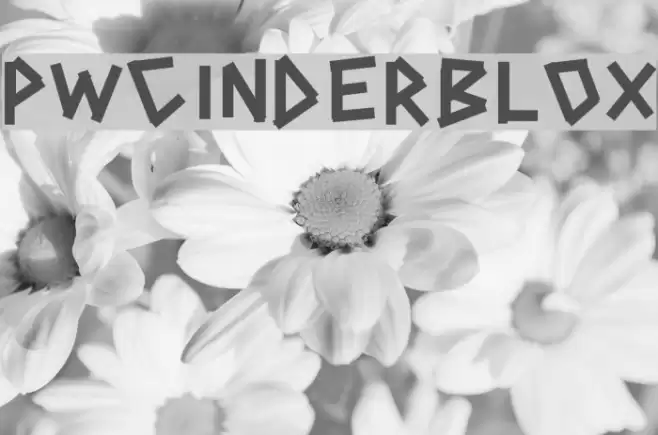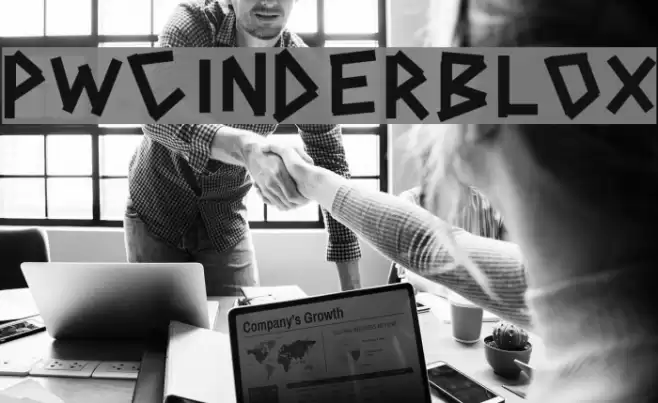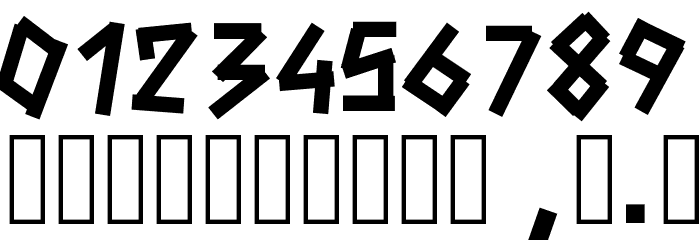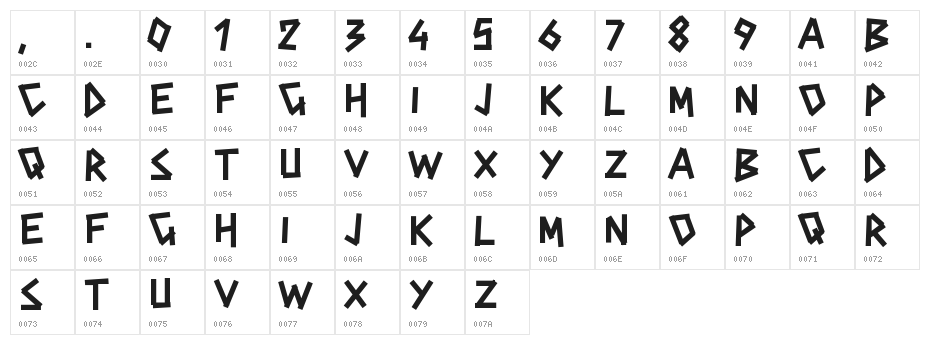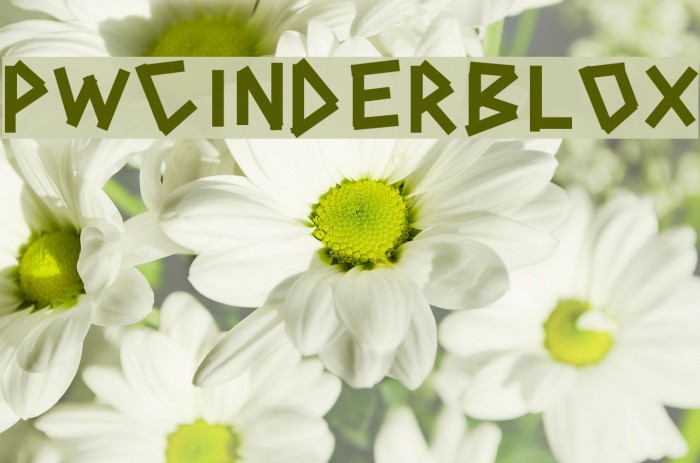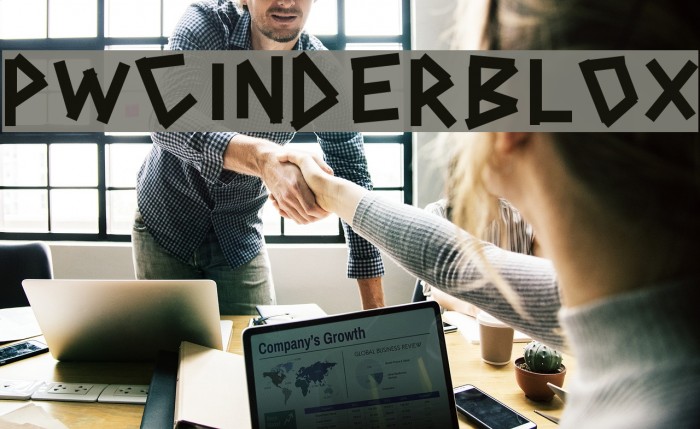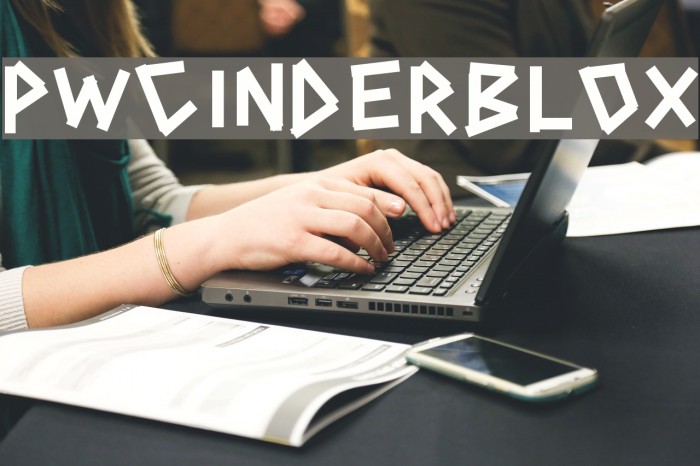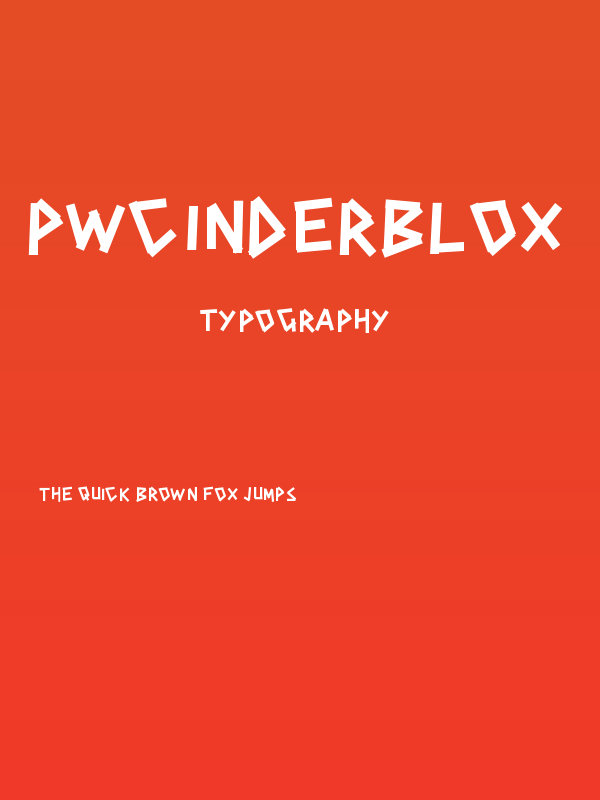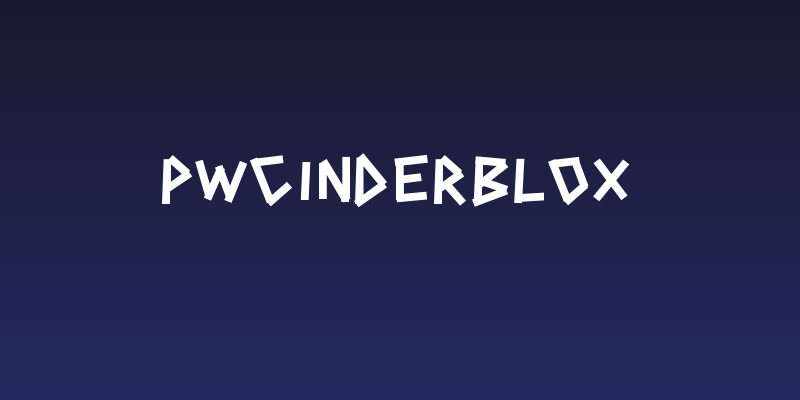
PWCINDERBLOX Font
PWCINDERBLOX Description
This font features a bold and angular design with a playful, geometric style. The characters are constructed with sharp edges and a blocky appearance, giving it a unique and eye-catching look. The uppercase and lowercase letters maintain a consistent style, with each character exhibiting a slightly tilted orientation, adding to its dynamic and energetic feel. The numbers and special characters follow the same design principles, ensuring uniformity across the font. Its boldness and distinctiveness make it suitable for projects that require a strong visual impact.
A bold, angular, and geometric font with a playful and dynamic style from Uncategorized fonts.